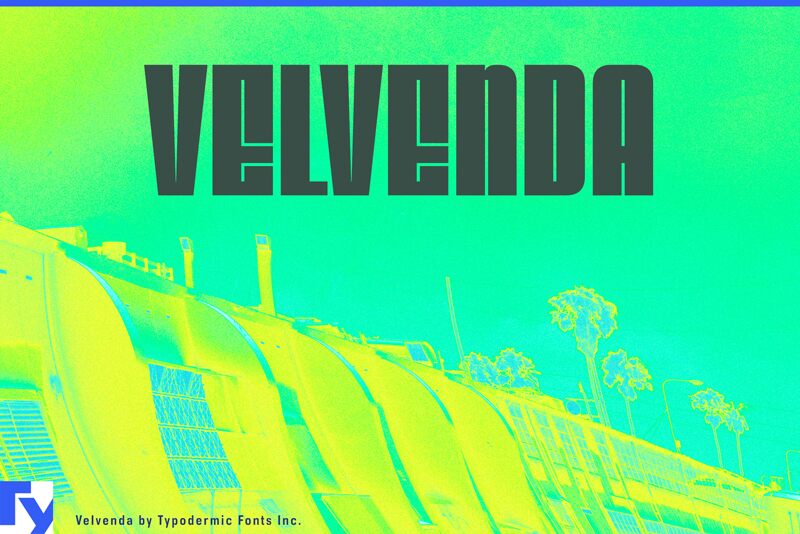
Velvenda Cooler emerges as a distinctive display font from the Velvenda family, designed by the renowned Ray Larabie of Typodermic Fonts Inc. This font exudes a strong retro vibe with its extra-bold weight and extra-condensed width, commanding attention and evoking nostalgia. The tight letter-spacing coupled with the robust construction of each character gives it an impactful presence that can't be ignored. Velvenda Cooler's aesthetic appeal lies in its balance between vintage charm and modern-day boldness, making it an ideal choice for projects that require a font with personality.
Whether it's for eye-catching headlines, standout logos or dynamic advertising visuals, Velvenda Cooler’s style is versatile enough to adapt to various creative contexts while maintaining its unique flair. The retro style hints at classic design periods but is engineered for contemporary use, ensuring that your project will resonate with audiences looking for something both familiar and fresh. With its powerful stance and condensed form, Velvenda Cooler is perfectly suited for designs where space is premium but impact is paramount.